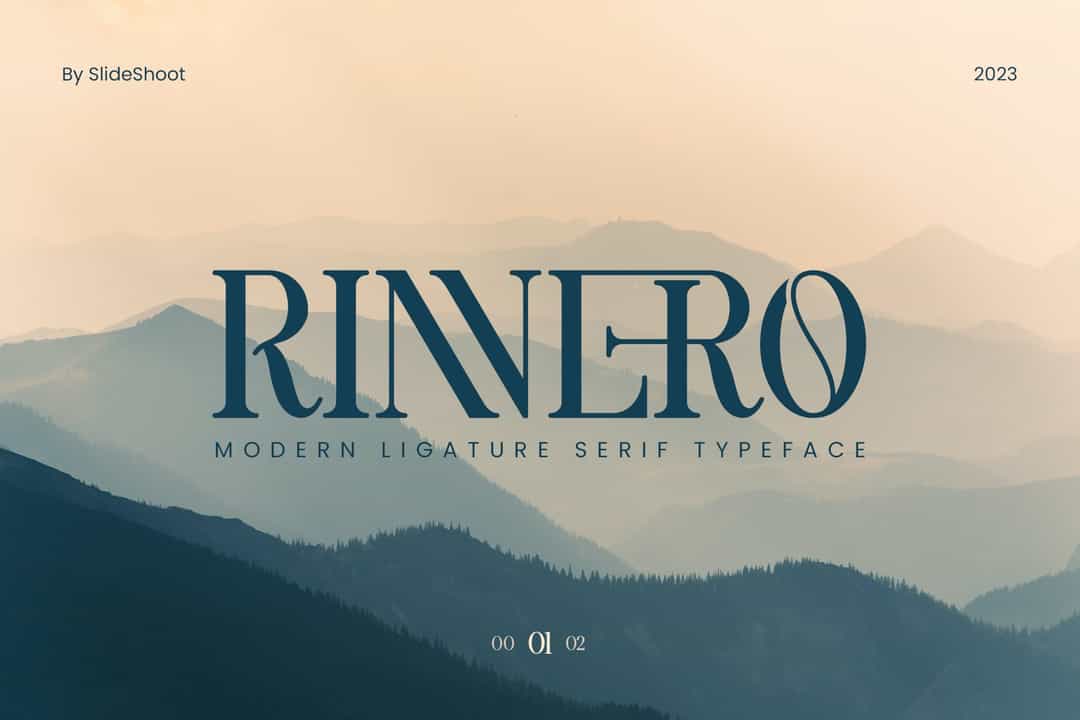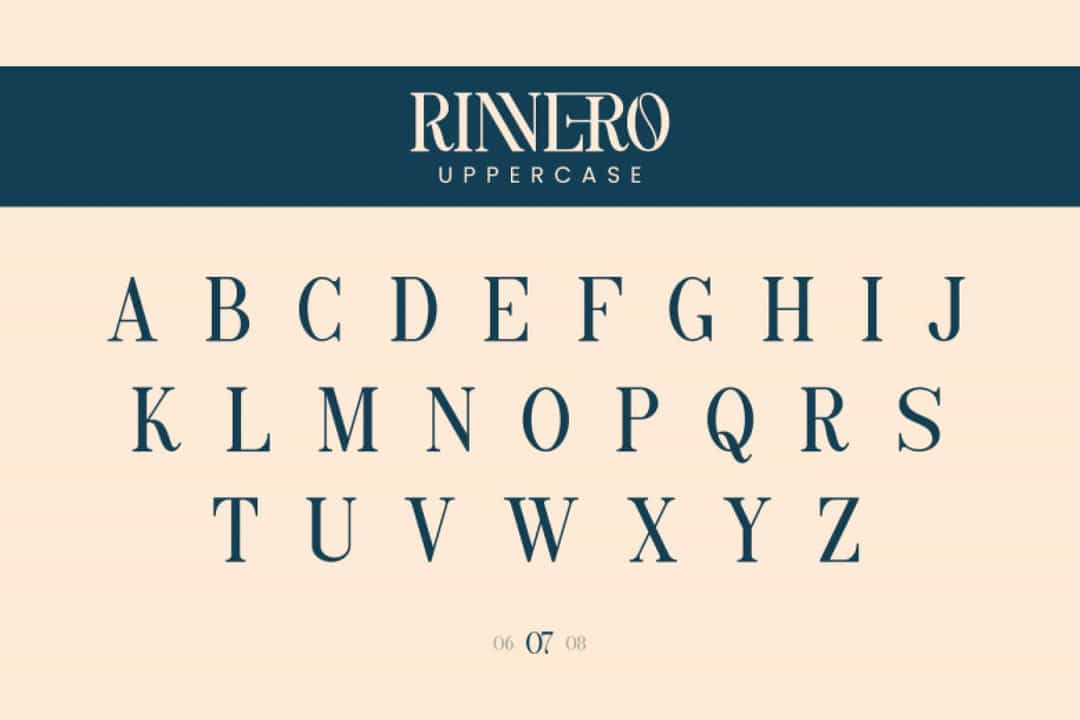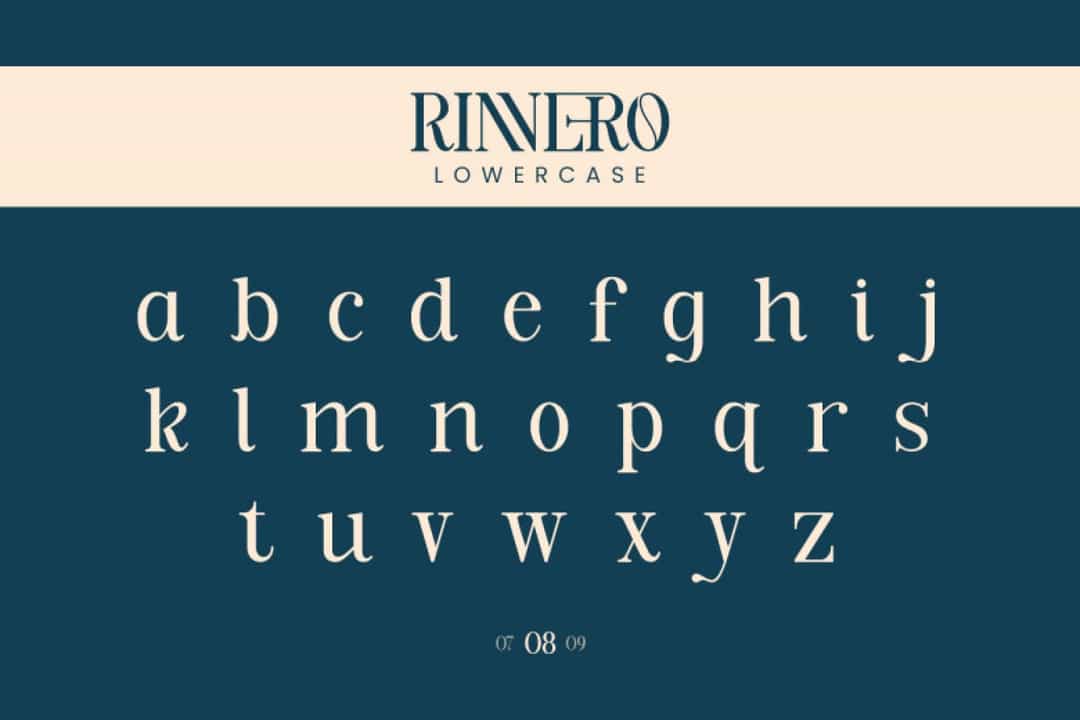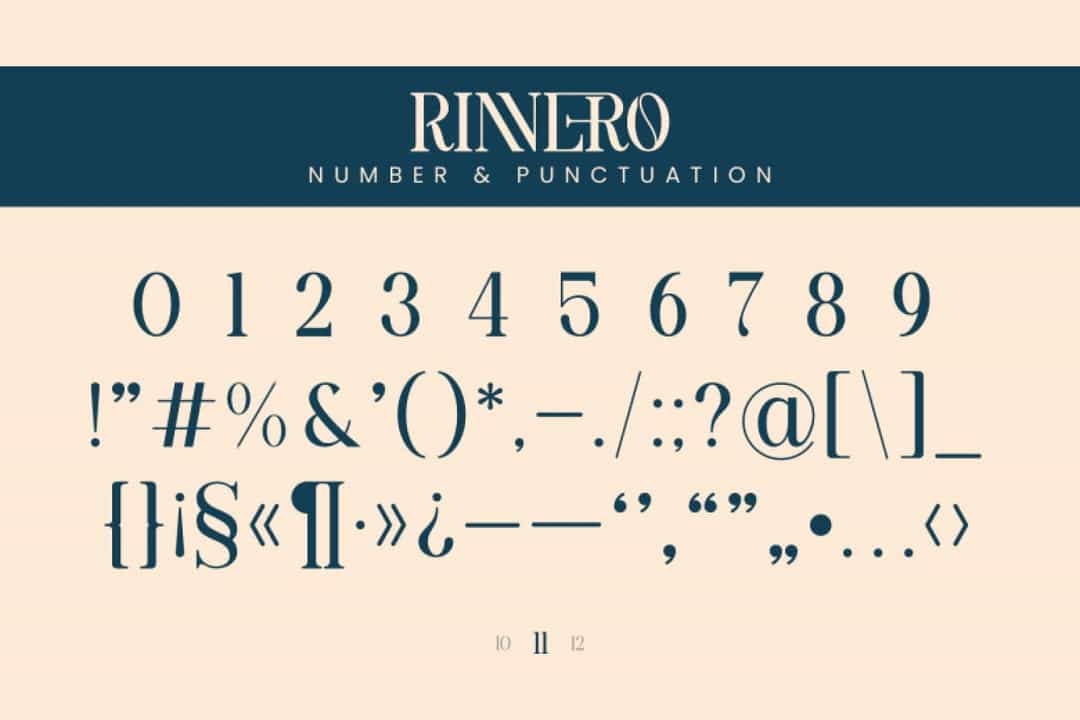
Rinnero can be described as an elegant, smooth, and fashionable serif font with stunning personality. Ideal for invitation cards, corporate logos, film titles and business cards as well as book titles or brands and designs of many other kinds – it makes an eye-catching statement in design projects of all kinds! With its elegant ligatures and alternations features this font can help make any project come alive!